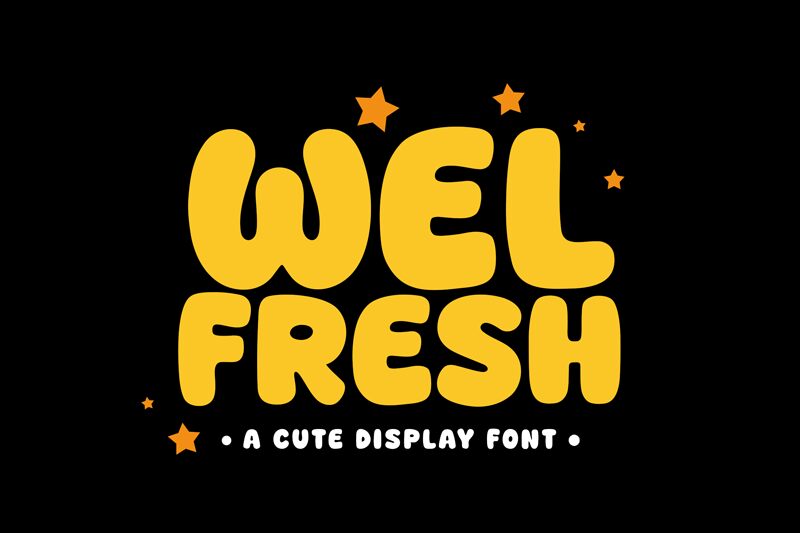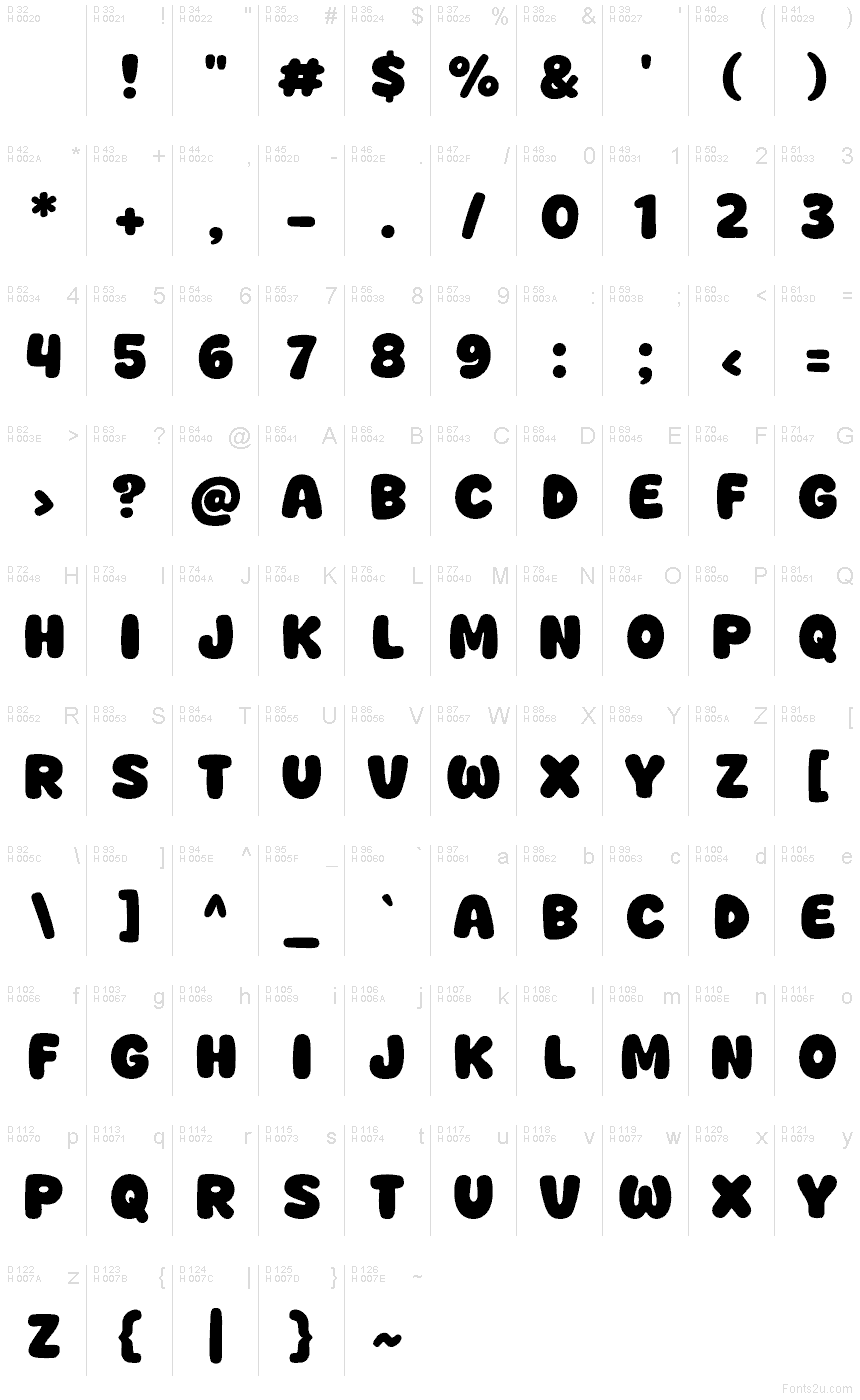
Welfresh
Welfresh font by Khurasan is a free cartoon display typeface that looks like it’s been shaped out of soft, puffy marshmallow. The bold, rounded letters swell into each other with a friendly bounce, giving every word a chunky, huggable presence. There’s no sharpness or stiffness here—just smooth, inky blobs that feel playful, bubbly, and full of motion even when standing still.
Using Welfresh, titles instantly read as fun, approachable, and kid-focused, making this free font a natural fit for children’s books, toy packaging, snack labels, birthday invitations, game logos, and YouTube thumbnails. It stays legible at larger sizes, where the squishy details really shine. For supporting text, pair Welfresh with a clean rounded sans serif set smaller to keep the headlines loud and joyful while the copy stays easy to read.